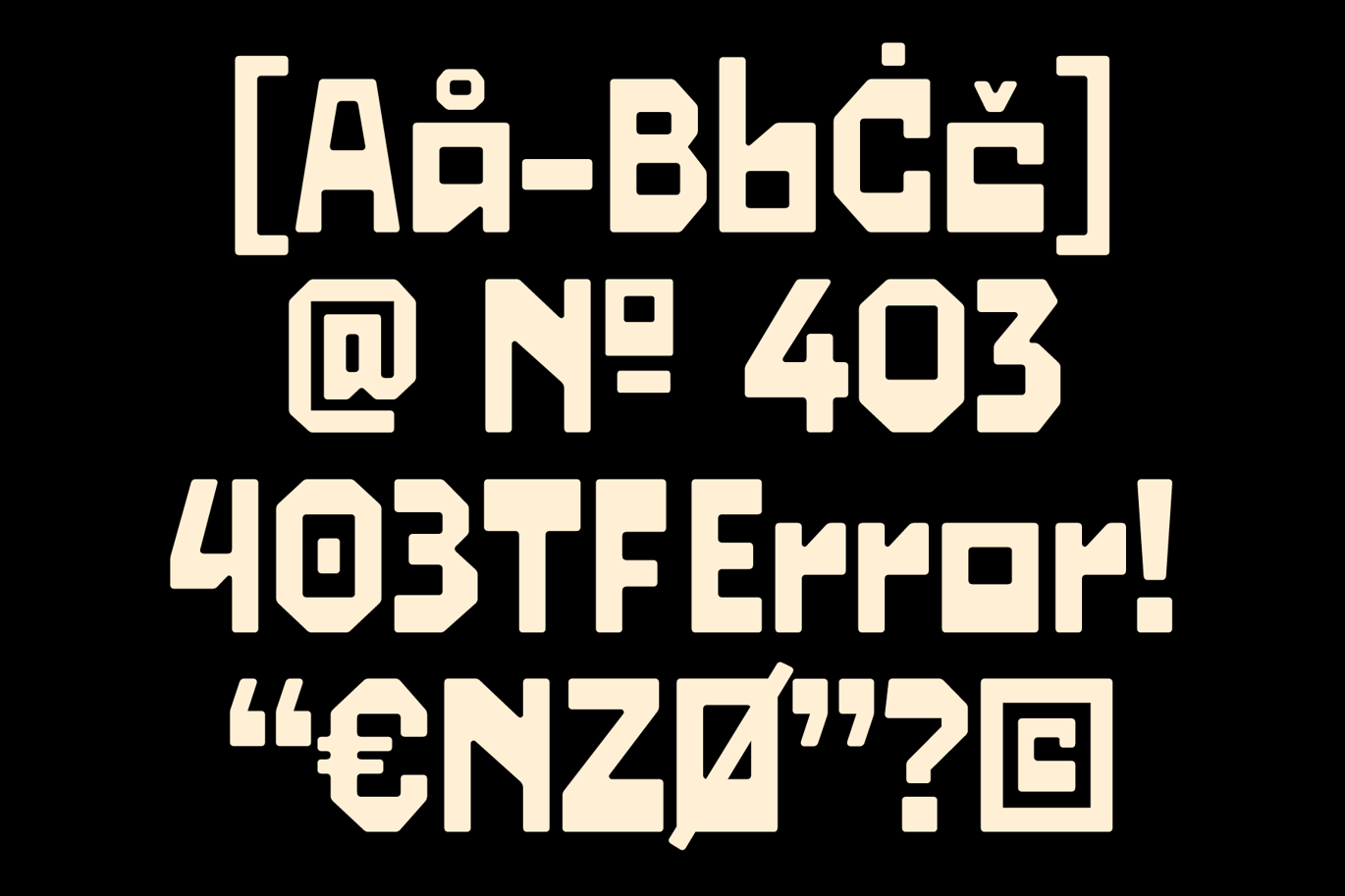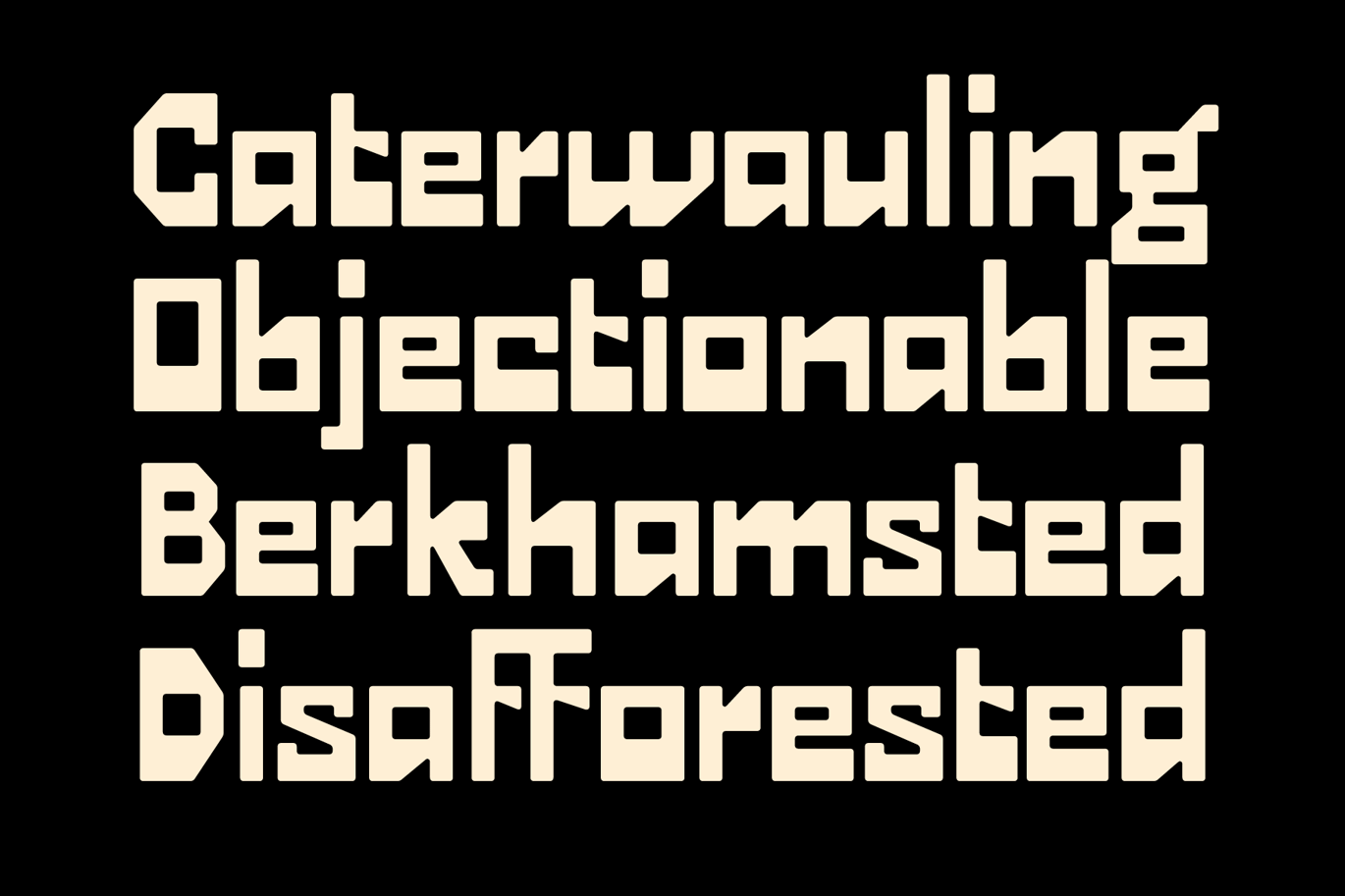
Technul Regular Soft Font
Technul is built from squares. Curves are replaced with flat sides and chopped corners, so an O becomes an octagon and an S turns into a stack of steps. This Soft version takes the sharpness off those corners just a little, which makes words like “Caterwauling” and “Disafforested” in the specimen look solid and chunky rather than spiky.
It belongs to 403 Type Foundry’s 403 Technul family, which also has Regular and Slanted styles. The character set goes beyond basic Latin, with accented letters, the numero sign, currency symbols and brackets, about 600 glyphs in all according to the listing.
Best uses for Technul
• Video game titles and menus
• Tech and sci-fi event posters
• Album and EP covers
• Streetwear prints
• Esports and stream overlays
Technul is very geometric, so a softer partner helps. Space Grotesk keeps the tech mood for body text. JetBrains Mono works for small labels and code-style details. If you need something neutral for long copy, use Inter.
What free font is similar to Technul?
Orbitron and Chakra Petch are free, open-licence fonts with squared, sci-fi shapes. Bungee is a heavier blocky option for posters.
What is the difference between Technul Regular and Soft?
The Regular style has sharp, clipped corners. Soft keeps the same blocky structure but rounds those corners slightly, which feels friendlier and prints a little cleaner at small sizes.